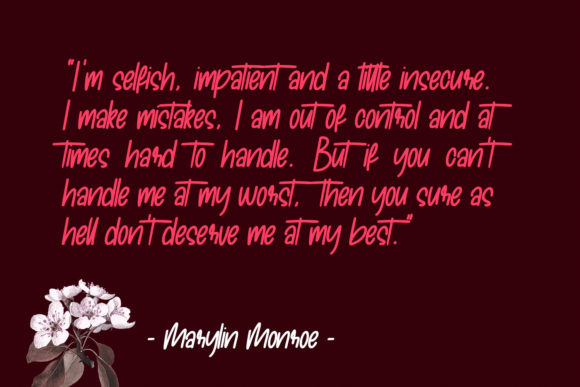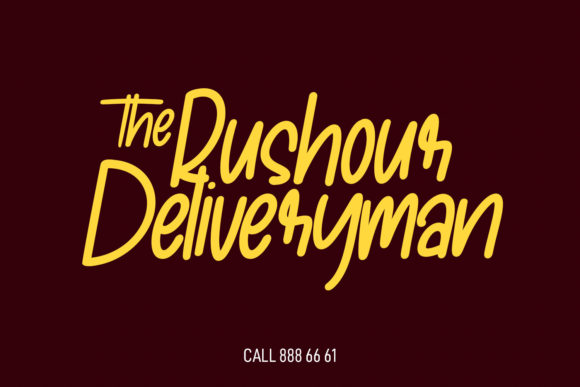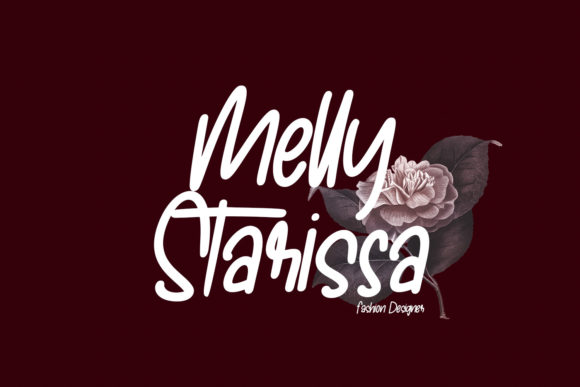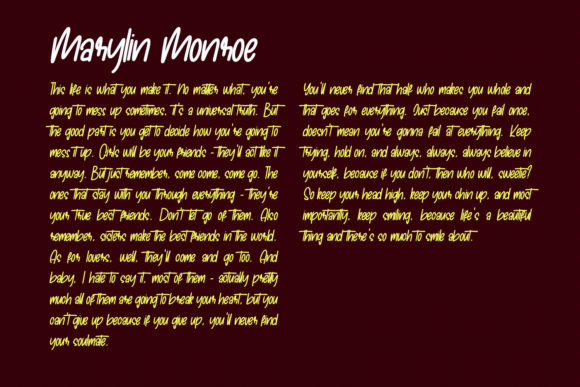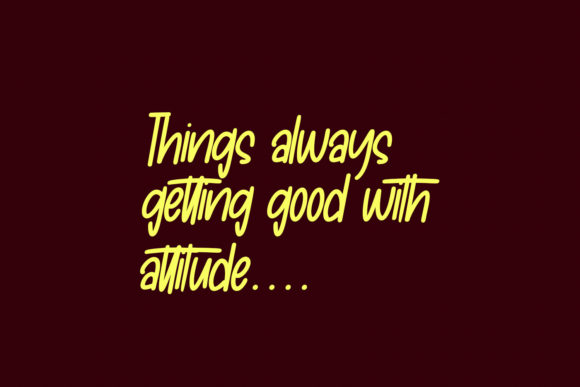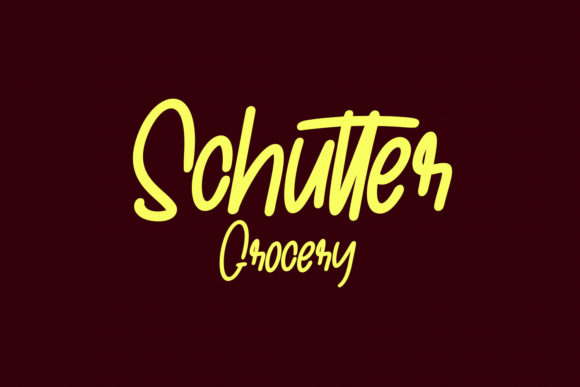
Golfrush Font: The Ultimate Handwritten Font for Creative Projects
Are you tired of using the same old fonts for your creative projects? Look no further than Golfrush Font, a relaxed and adaptable handwritten font that’s perfect for designers and crafters alike. With its unique charm and versatility, Golfrush is an incredible asset to any font library, capable of elevating any creation to the next level.
The Characteristics of Golfrush Font
Golfrush Font is a beautifully crafted handwritten font that’s designed to bring a touch of personality to your projects. Its relaxed and adaptable nature makes it perfect for a wide range of applications, from creative branding and advertising to packaging, signage, and more. The font features:
- Unique letterforms: Golfrush boasts a distinctive and stylish lettering style that’s both elegant and approachable.
- Natural flow: The font’s handwritten nature gives it a natural, fluid feel that’s perfect for creating a sense of warmth and connection with your audience.
- Versatility: Golfrush is highly adaptable, making it suitable for use in a variety of contexts, from headings and titles to body text and more.
The Benefits of Using Golfrush Font
So why choose Golfrush Font for your creative projects? Here are just a few benefits of using this amazing font:
- Adds personality: Golfrush brings a unique and playful touch to your designs, helping to set your brand or project apart from the crowd.
- Enhances creativity: With its adaptable nature and stylish letterforms, Golfrush inspires creativity and encourages experimentation in your designs.
- Improves readability: Despite its handwritten nature, Golfrush is remarkably legible, making it perfect for use in body text and other applications where readability is key.
Who Can Benefit from Golfrush Font?
Golfrush Font is perfect for a wide range of designers, crafters, and creative professionals, including:
- Graphic designers: Looking for a unique and versatile font to add to their library.
- Branding and advertising agencies: Seeking to create memorable and engaging campaigns.
- Packaging designers: Needing a font that can add a touch of personality to product packaging.
- Crafters and DIY enthusiasts: Looking for a font to use in their handmade projects, such as lettering, journaling, and more.
How to Use Golfrush Font in Your Projects
Using Golfrush Font in your projects is easy. Here are a few tips to get you started:
- Pair with other fonts: Combine Golfrush with other fonts to create interesting and dynamic typography.
- Experiment with colors: Try out different colors and textures to add depth and visual interest to your designs.
- Play with layout: Use Golfrush to create eye-catching headings, titles, and other design elements.
In conclusion, Golfrush Font is an incredible asset for any designer or crafter looking to add a touch of personality and creativity to their projects. With its unique characteristics, versatility, and adaptability, Golfrush is the perfect font for a wide range of applications. Whether you’re a seasoned professional or just starting out, Golfrush is sure to elevate your creations and help you stand out from the crowd.